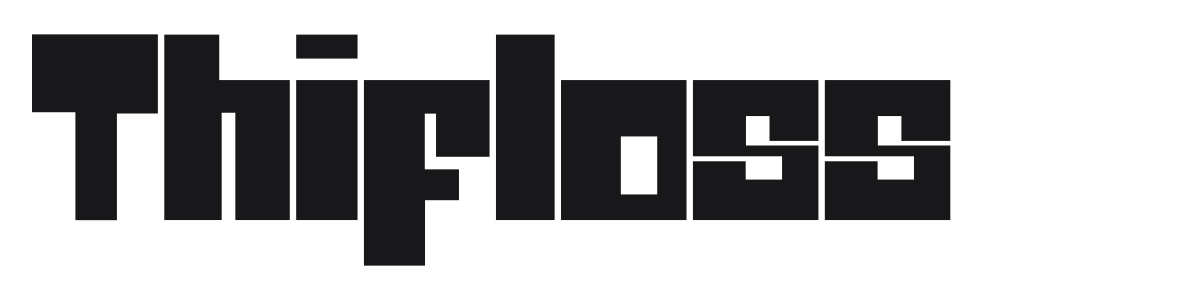
Thifloss
Thifloss is a heavy geometric square sans with thick uniform strokes and hard-edged terminals that give it a brutalist, industrial character. Every joint and cut is sharp, making the type feel assembled from structural blocks rather than drawn. It commands attention at large sizes and suits gaming, streetwear, and music branding where impact matters most.